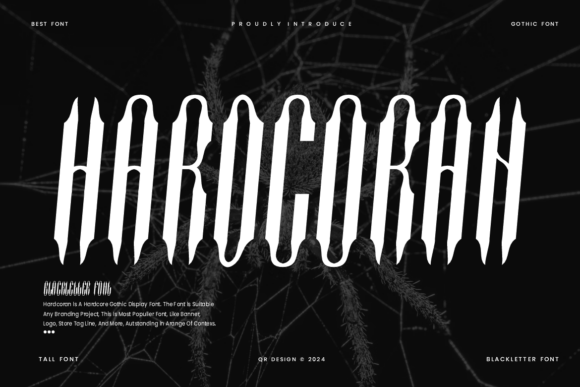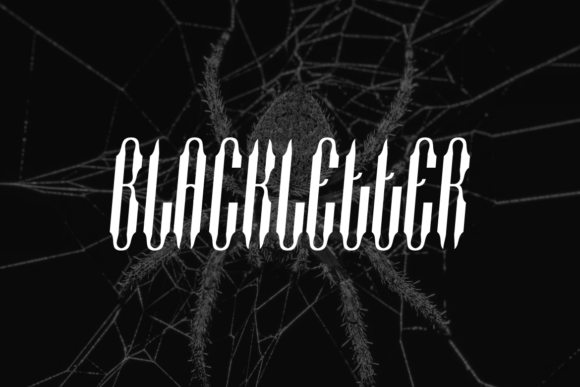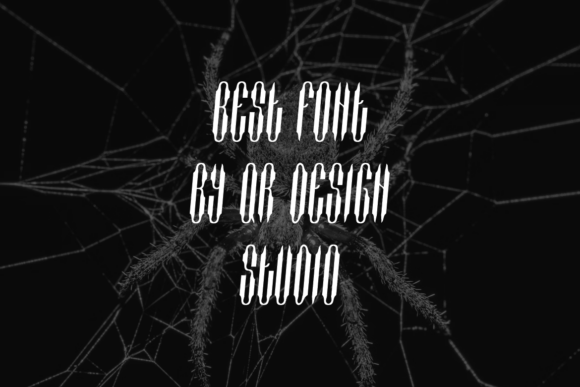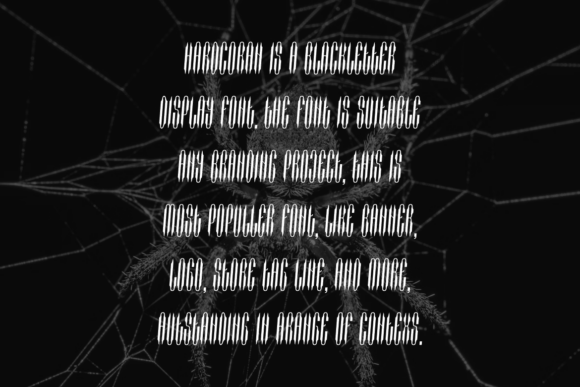
Hardcoran Font
About the Hardcoran Font
Let us introduce you to Hardcoran Font, where timeless design meets modern craftsmanship. Hardcoran
is a bold, tall gothic blackletter font with sharp edges and dramatic verticality. Ideal for dark branding, album covers, tattoo designs, and metal band logos, this font fuses historical blackletter aesthetics with a modern, high-impact edge. With its spiky character shapes and condensed structure, Hardcoran evokes power, mystery, and rebellious energy.
Hardcoran excels in large-scale applications like headlines, posters, and branding projects requiring a strong, assertive presence. Its condensed nature makes it unsuitable for body text or UI elements where readability is paramount. Avoid using it for long paragraphs or small sizes.
The font’s rebellious energy pairs well with clean, modern sans-serif fonts like Montserrat or Futura for a balanced contrast. For a more traditional feel, consider pairing it with a classic serif like Garamond or a slightly more geometric serif like Playfair Display. These pairings temper Hardcoran’s intensity, offering visual breathing room and improving overall legibility in multi-font designs.
Hardcoran’s core personality is aggressive and bold, making it perfect for brands conveying power, mystery, or a rebellious spirit. Think high-fashion streetwear, heavy metal music, or projects with a strong gothic or occult theme.
Hardcoran Font Usage Examples
Hardcoran Font Example